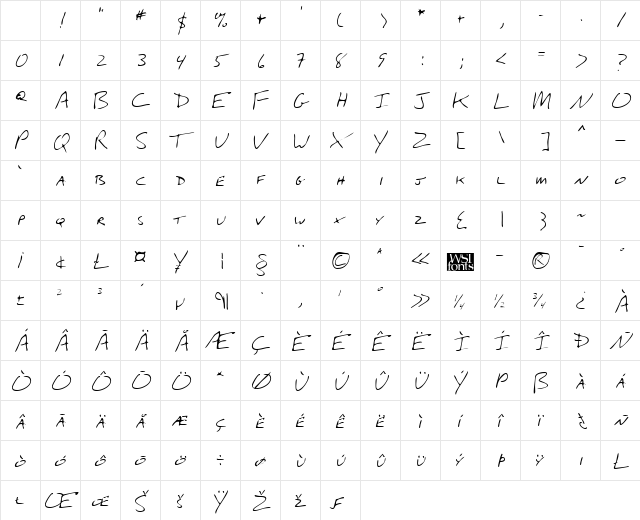
WalkersHand Regular Free Font
WalkersHand Regular
WalkersHand Family
Complete WalkersHand Regular glyph index. Displaying only characters natively supported by WalkersHand Regular font.
Design Context for WalkersHand
WalkersHand flows with the natural rhythm of handwritten lettering, making it ideal for designs that call for warmth and personal expression.